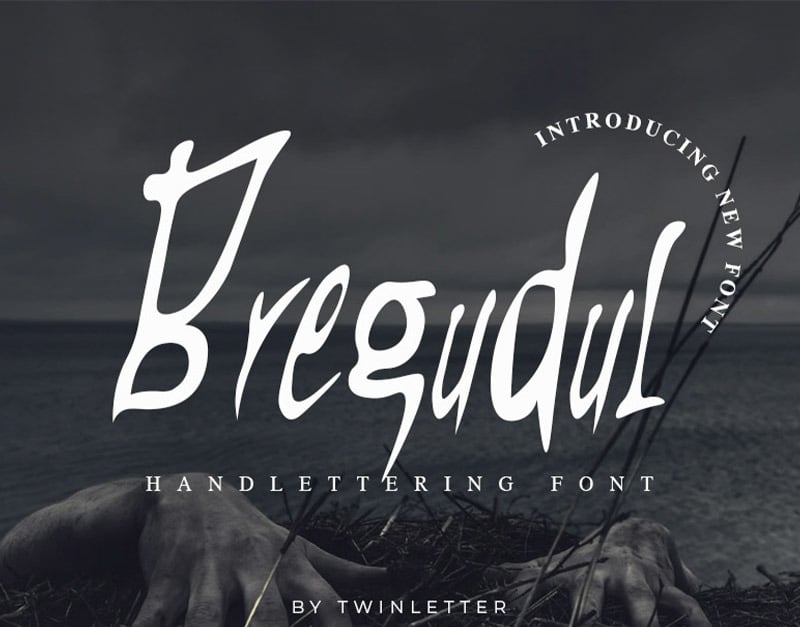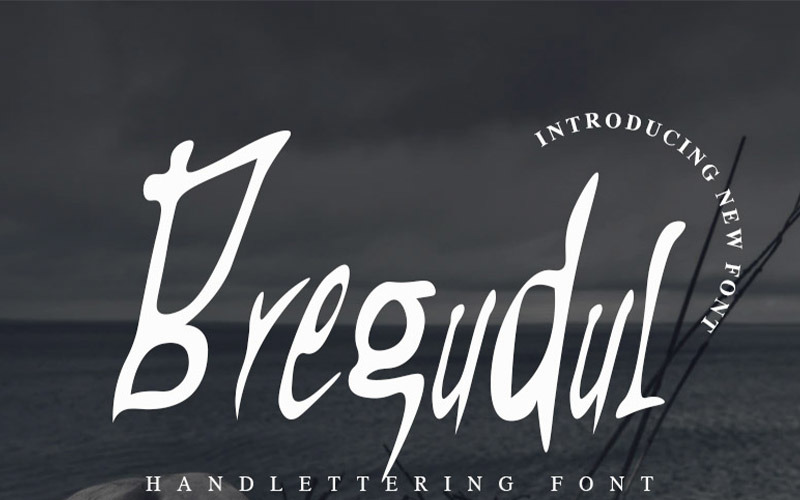
Bregudul Font
This is a Btitudulent font, this font is made with a natural hand touch with horror and strong nuances. This font is designed to be combined with various other font types. You can create elegant and extreme designs for your project with this font